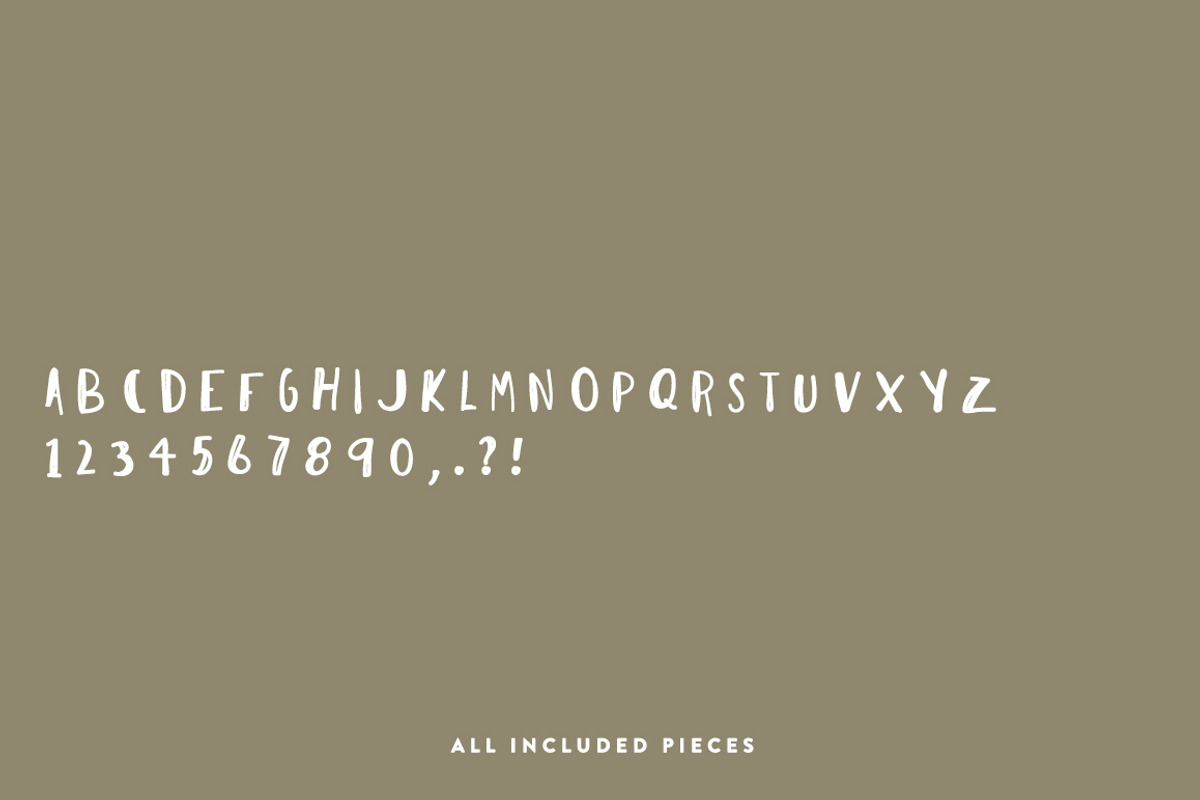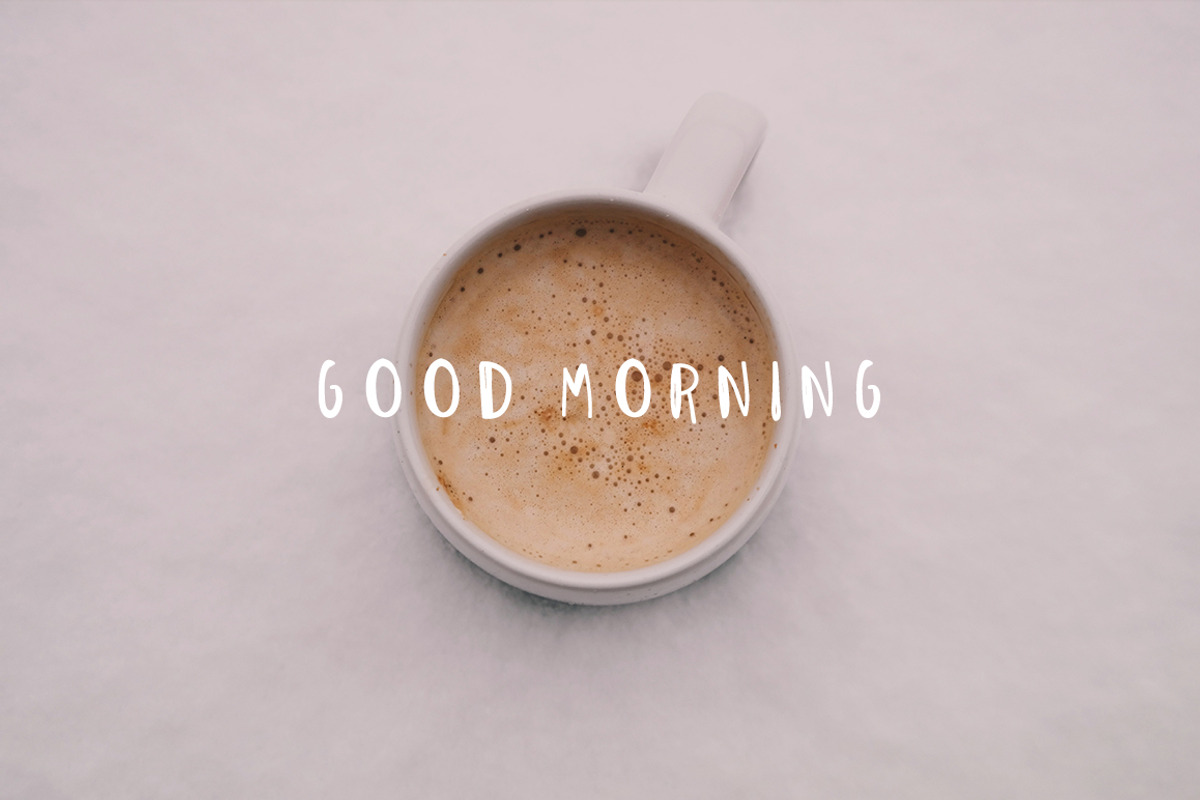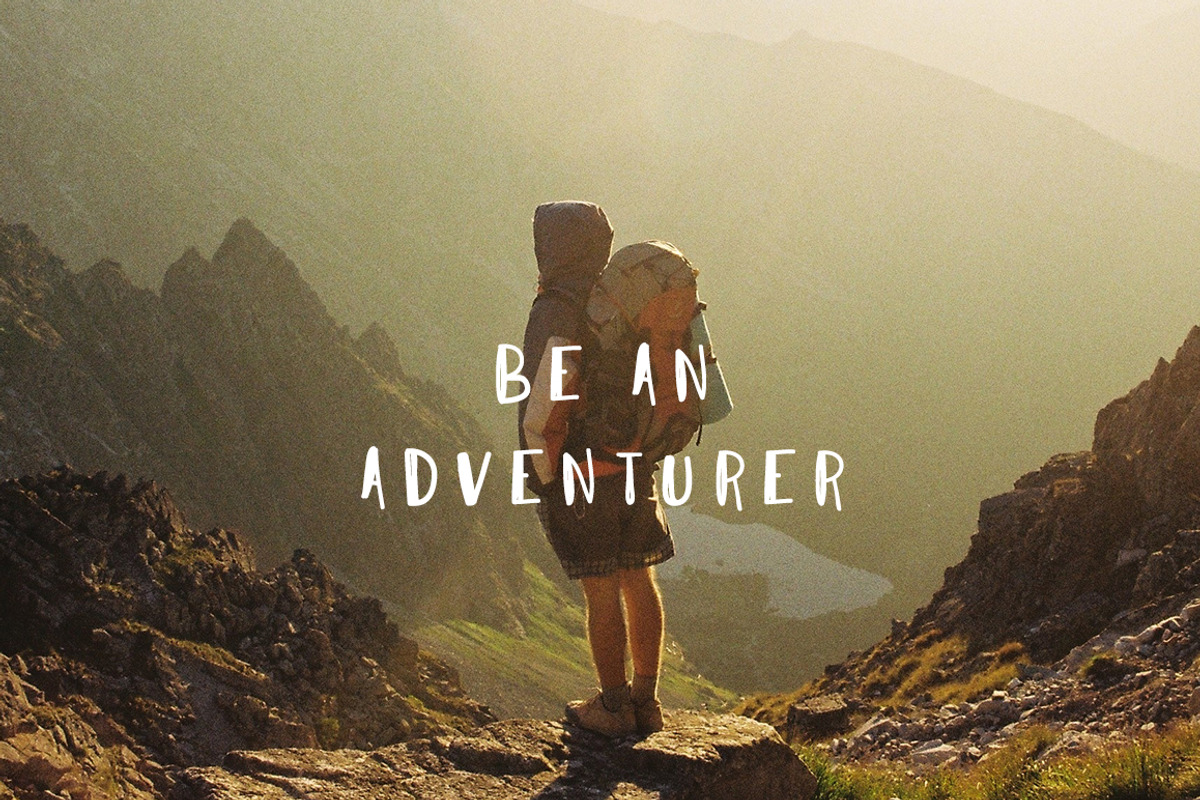
I Need Coffee Font
I Need Coffee Font by The Fresh Exchange is a font selected for branding, posters, packaging, typography.
- An all uppercase font with numbers and a few pieces of punctuation.
I Need Coffee Font by The Fresh Exchange fits naturally into Branding, posters, packaging, typography.